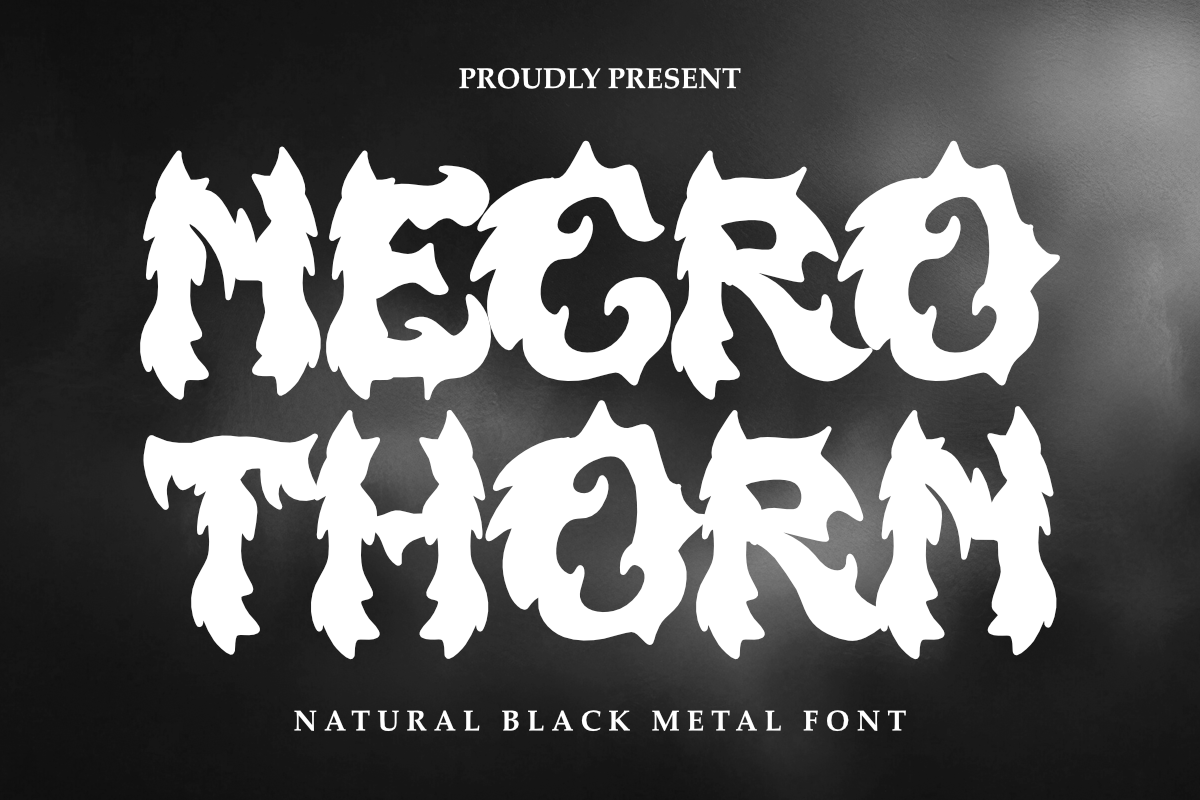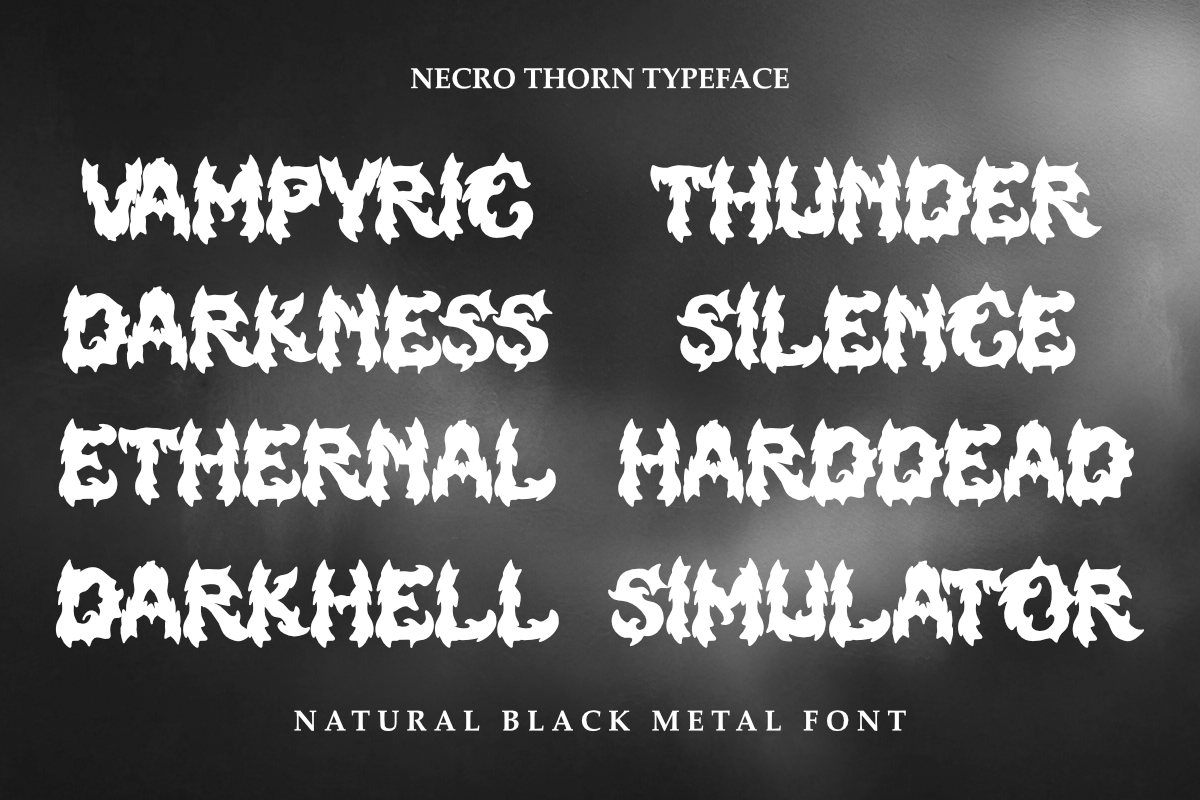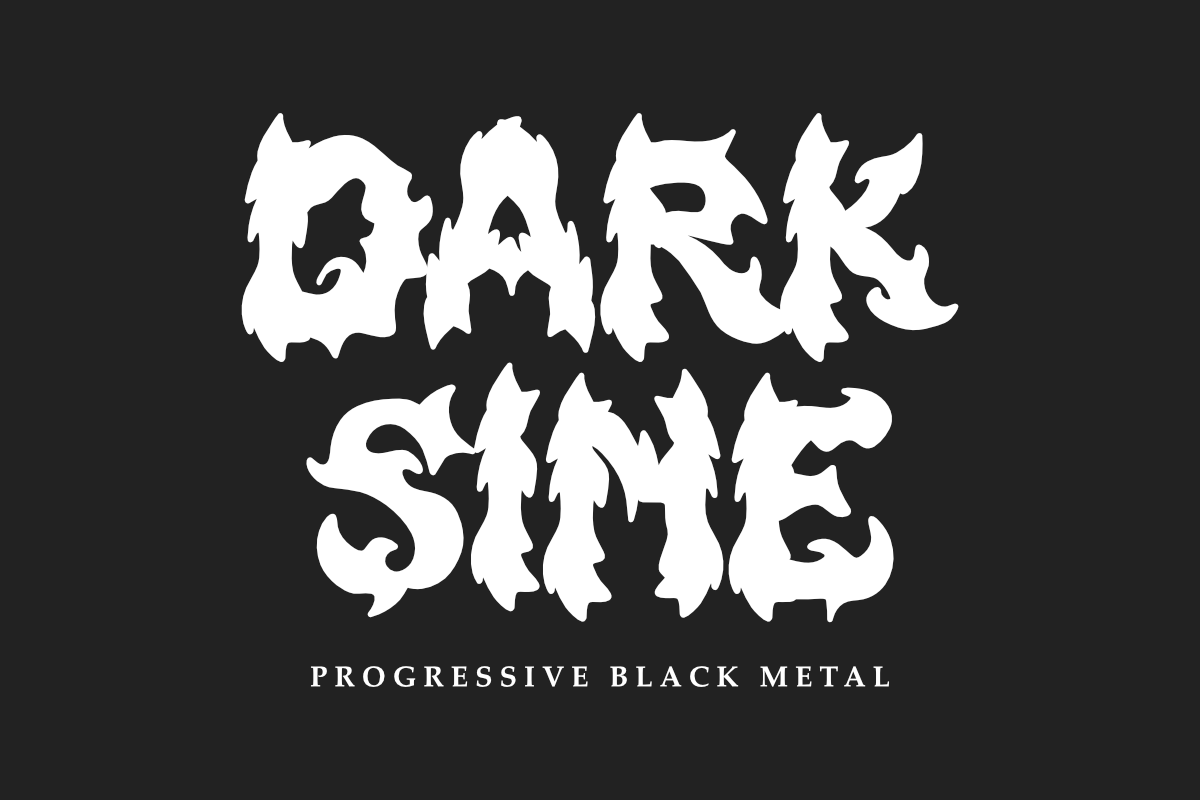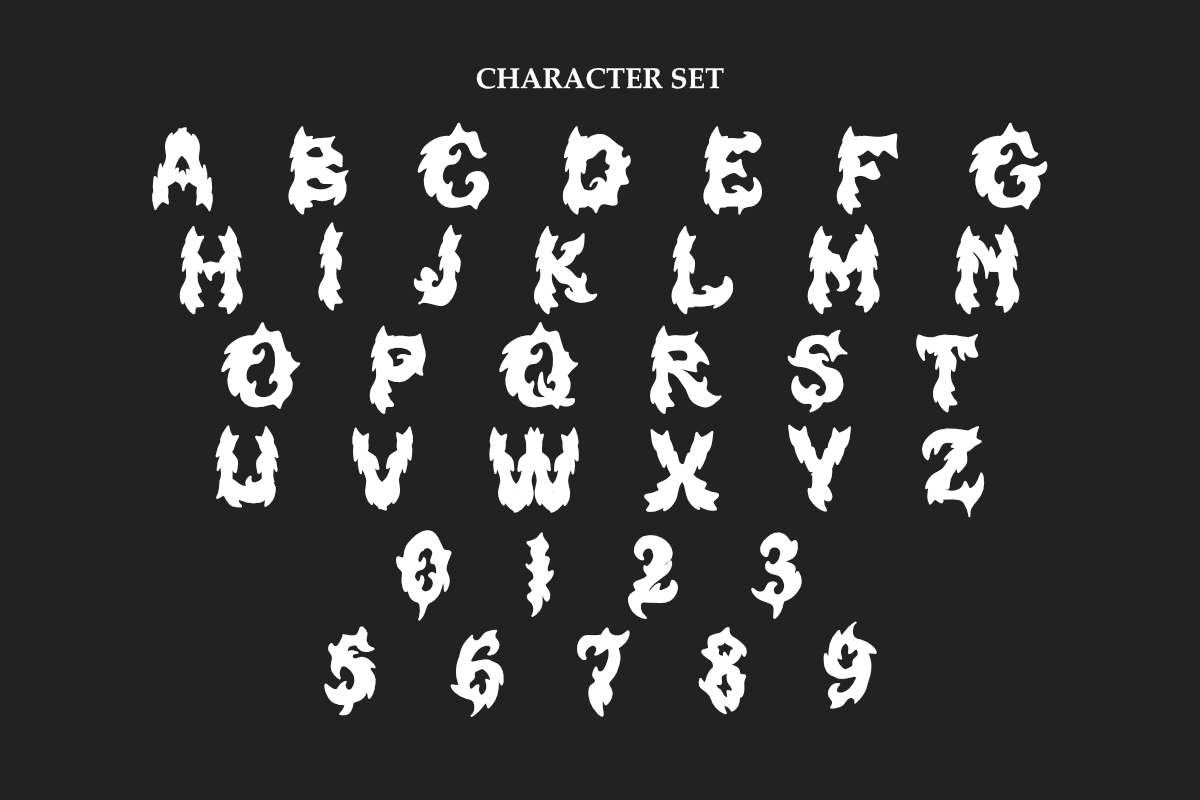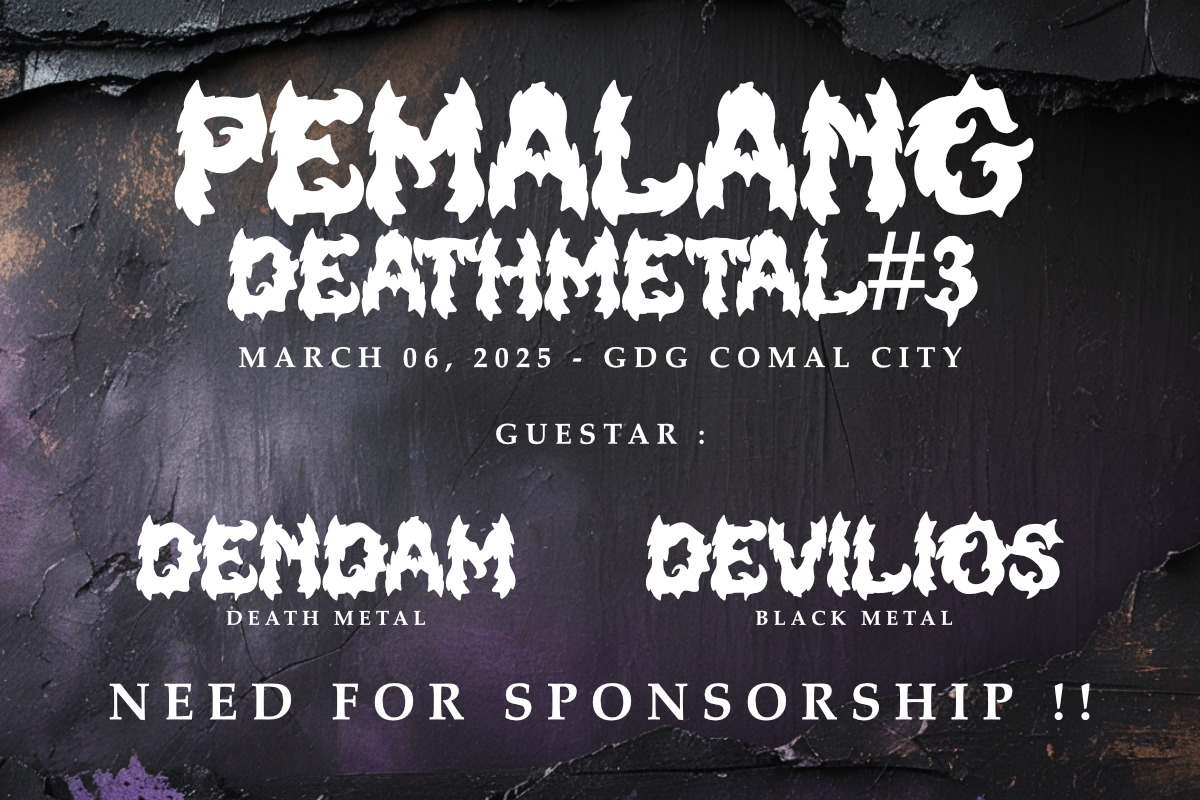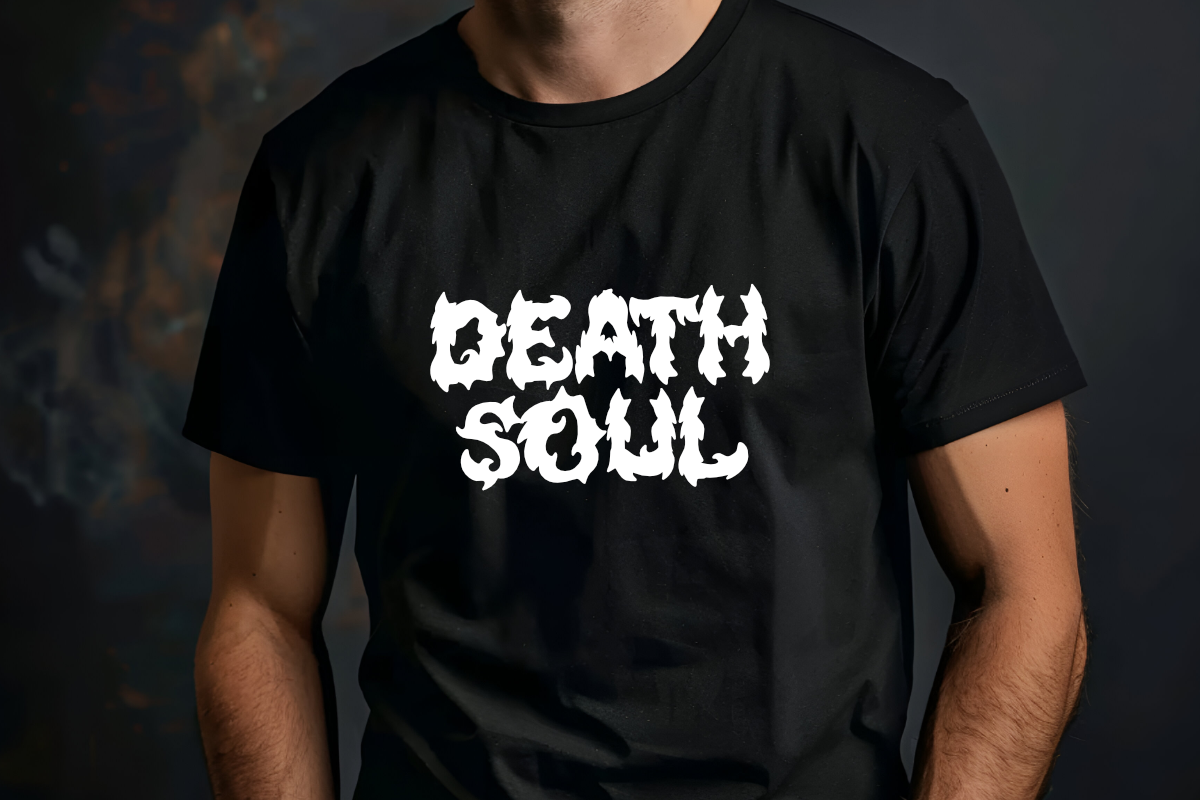
Necro Thorn - Black Metal Font
Necro Thorn is a natural black metal font. font inspired by black metal logos. This font is perfect for logos, headlines, t-shirts, print on demand, merchandise, posters, flyers, branding and other projects in black metal style.